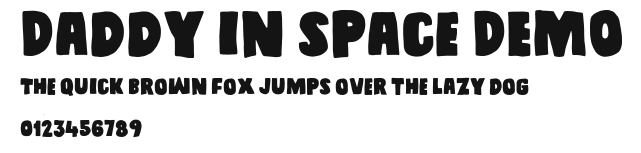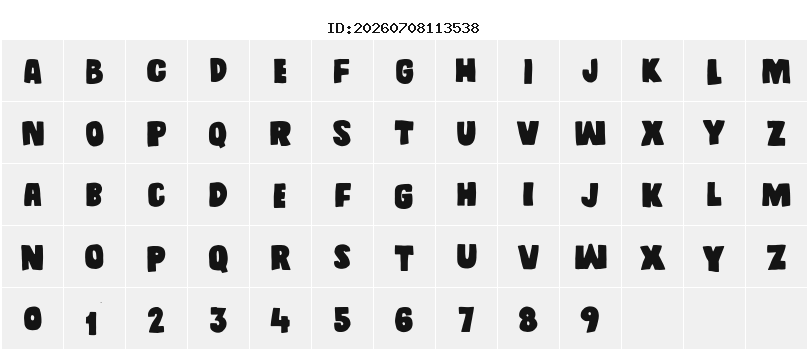
Daddy in space DEMO Preview
• Font Name: Daddy in space DEMO
• Font ID: JakobFischer/pizzadude.dk: Daddy in space DEMO: 2016
• Full Font Name: DaddyinspaceDEMO
• PostScript Name: DaddyinspaceDEMO
• Designer: Jakob Fischer / pizzadude.dk
• Manufacturer: Jakob Fischer / pizzadude.dk
About Daddy in space DEMO.otf
Daddy in space DEMO.otf is a modern, elegant sans-serif font designed for ultimate readability and visual harmony. Perfect for branding, headlines, web design, and print materials.